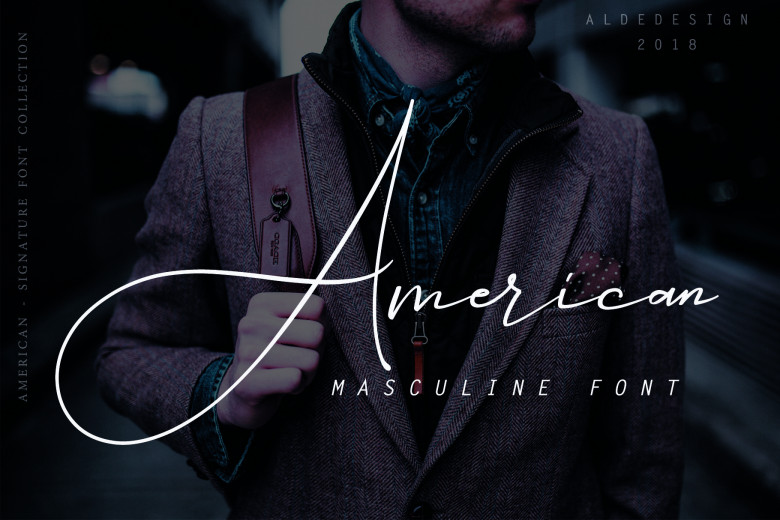
American Signature Font
A new fresh handmade font, classic calligraphic font which will add a sweet, elegant, and perfect feel to your design. Introducing American Font. American designed and shared by Aldedesign. This font is ideal for branding and decorate your any project, are perfect for wedding invitation or your blog. Also with their help, you can create a logo or beautiful frame for your home. Or just use for your small business, book covers, stationery, marketing, magazines and more.